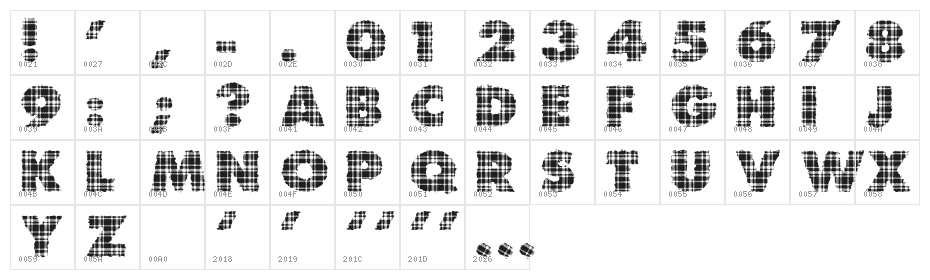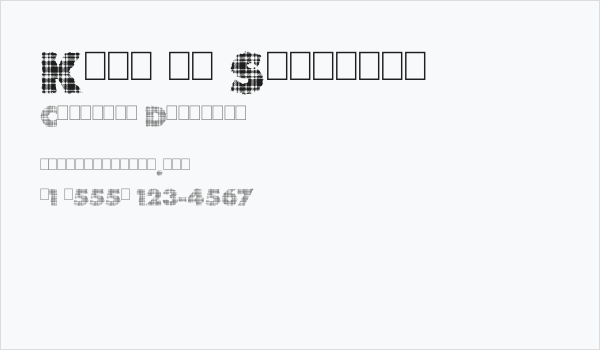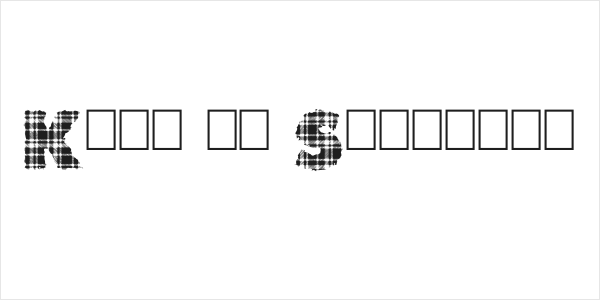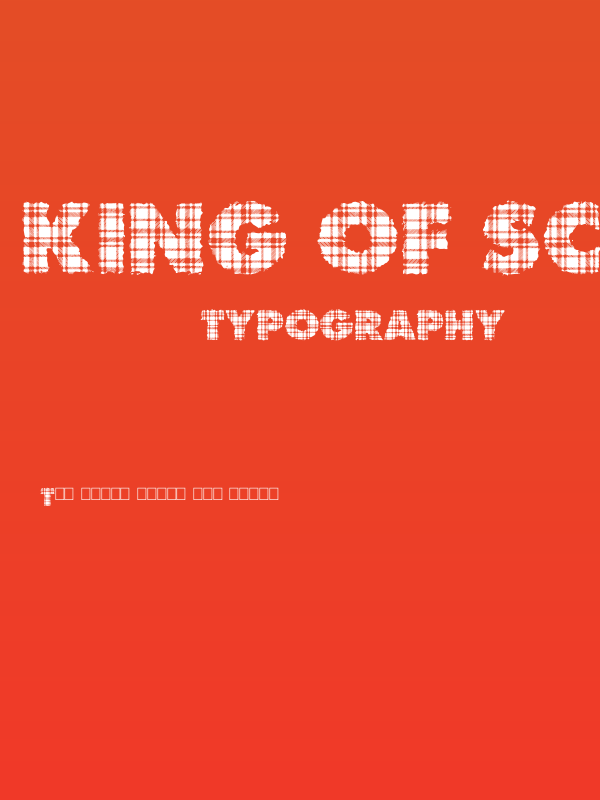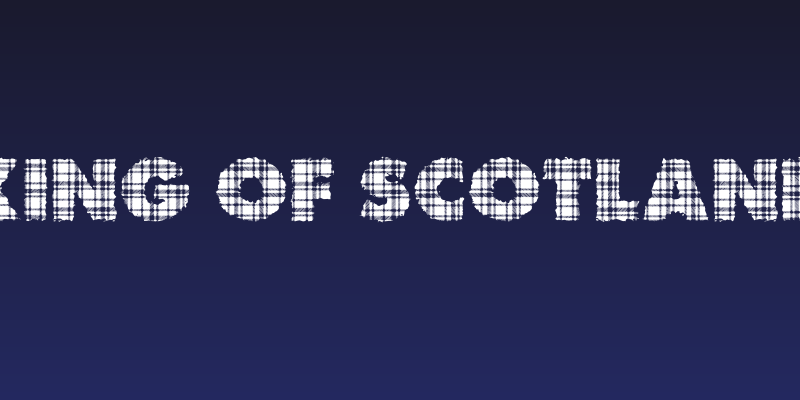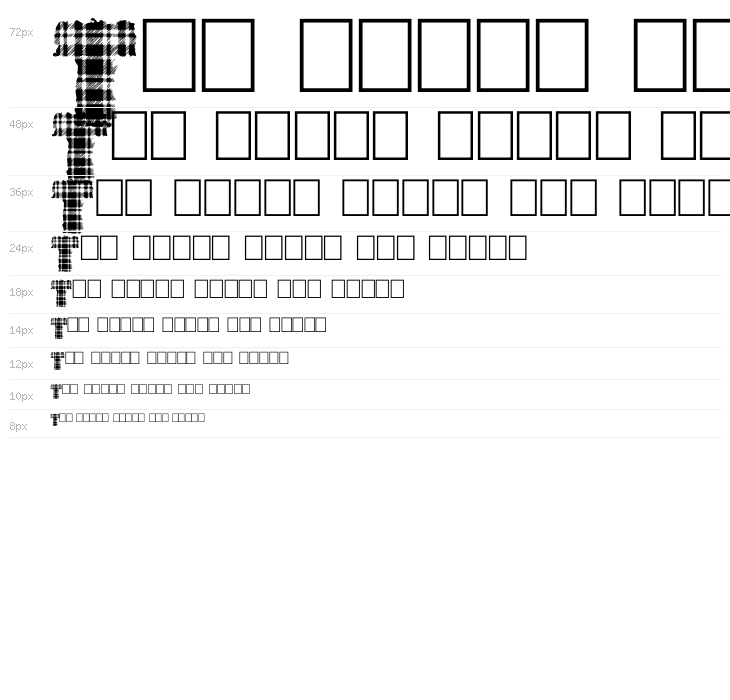
King of Scotland Font
King of Scotland Description
This font features a bold and striking design with a tartan pattern overlay, reminiscent of traditional Scottish textiles. The uppercase letters are robust and heavily stylized, creating a sense of strength and heritage. The numbers and special characters follow the same pattern, ensuring consistency across all elements. The font's unique texture adds depth and character, making it ideal for projects that require a touch of cultural flair or a bold statement.
| Proposed Projects | Ideal for branding, posters, and themed events that celebrate Scottish culture or require a bold, textured aesthetic. |